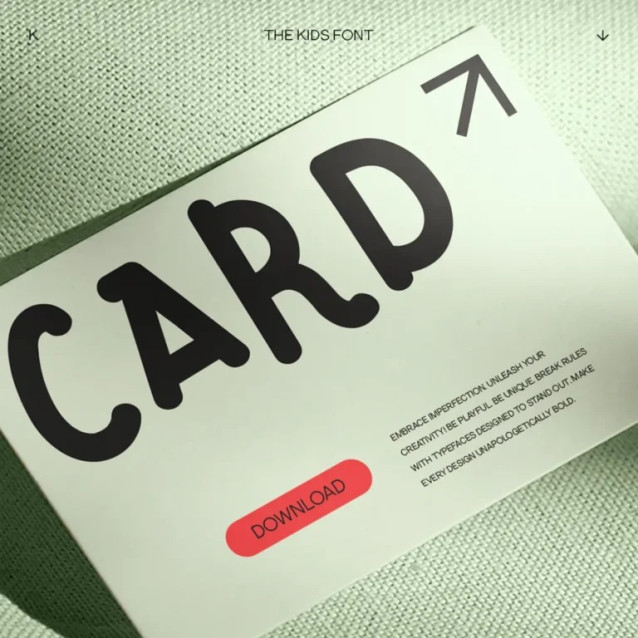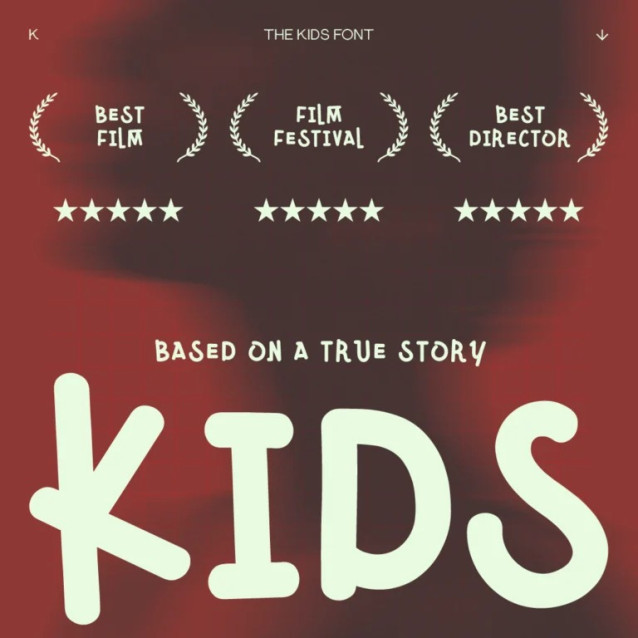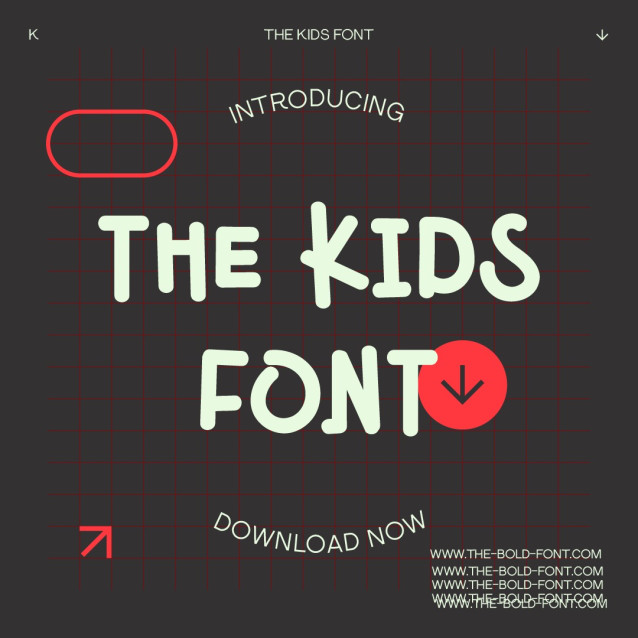
The Kids Font
The Kids Font a playful, bouncy font full of fun and imagination. With its neat and joyful personality, this font will enhance any project you wish to create!